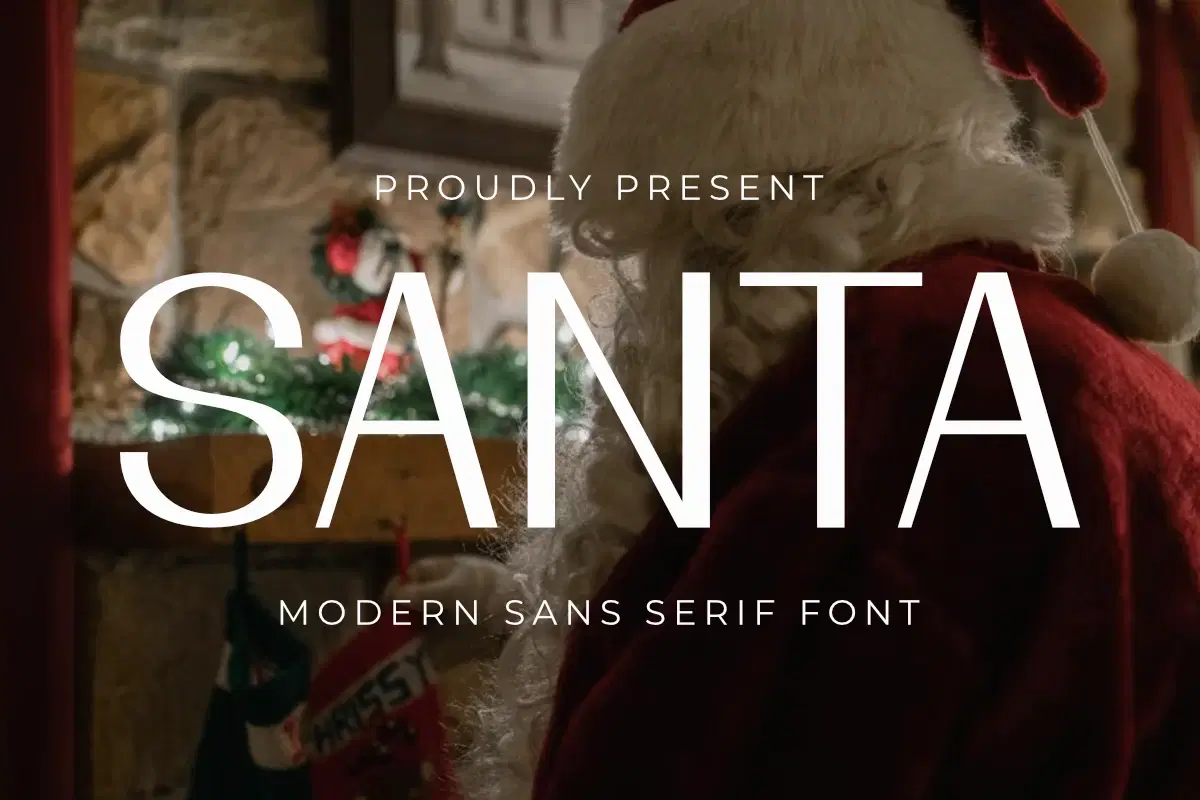
Santa is a minimalist thin modern sans serif font that offers a clean, elegant, and contemporary feel. Its lightweight design and simple lines give it a sophisticated and versatile character, perfect for a wide range of creative projects. This font is ideal for branding, logos, website headers, and print design, especially in the fashion, beauty, and lifestyle industries. Its legible and subtle aesthetic ensures your message is delivered with style and clarity.